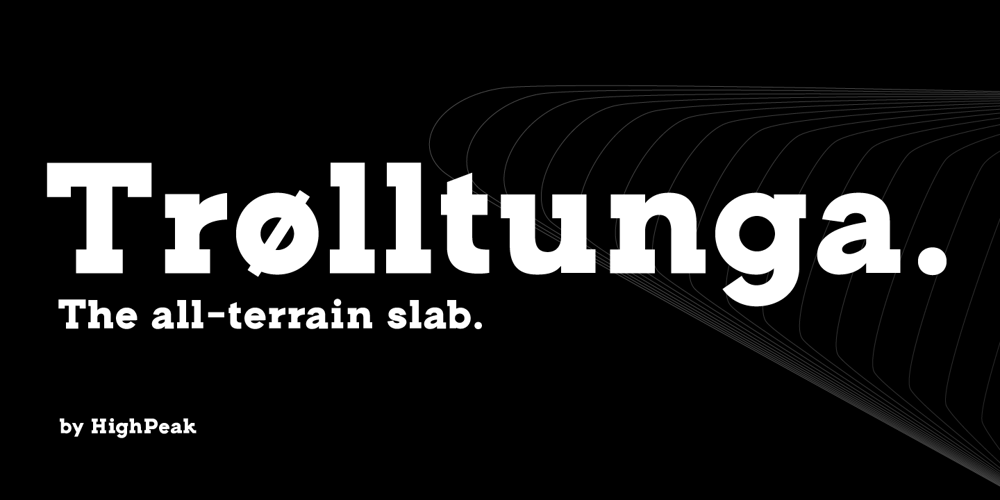
Trolltunga Font Family was designed by Francesco Franciosi and published by High Peak. Trolltunga contains 8 styles and family package options. A unique slab serif with strong shapes give it an unmistakable character and charm. Every letter has been designed with passion and the family comes with lots of opentype features. Enjoy!